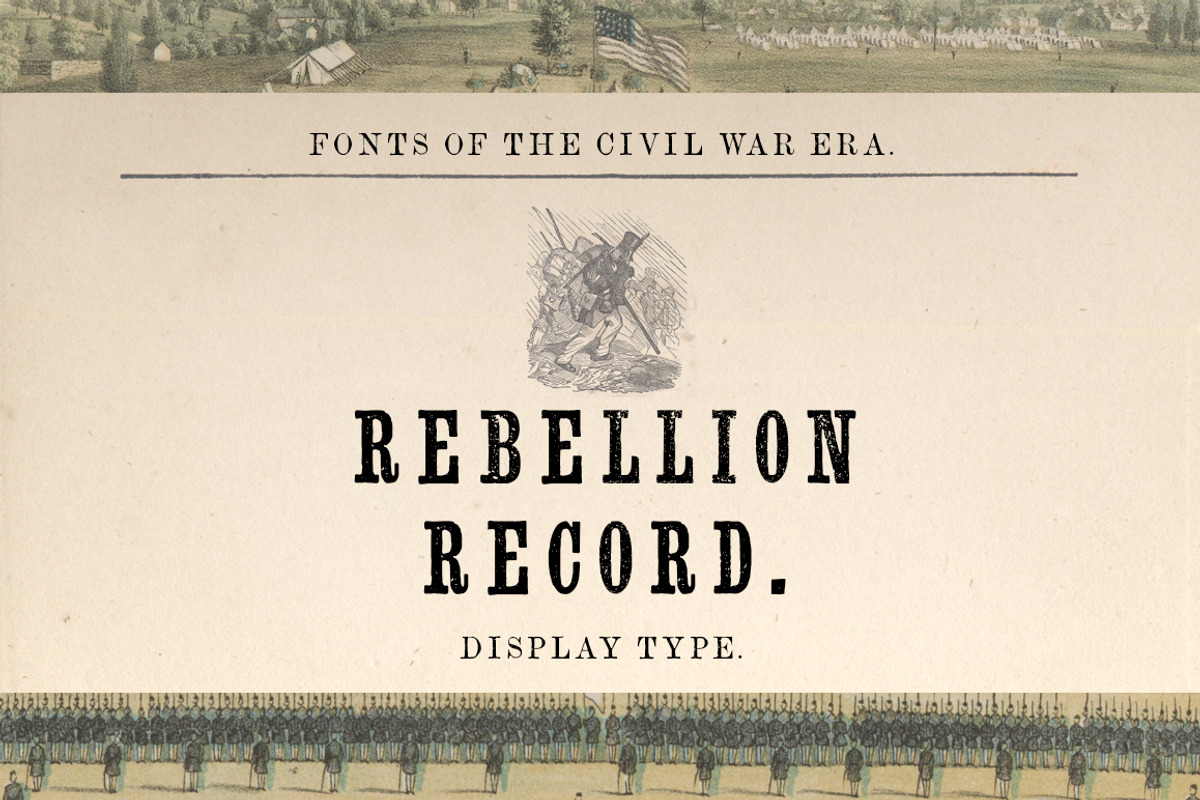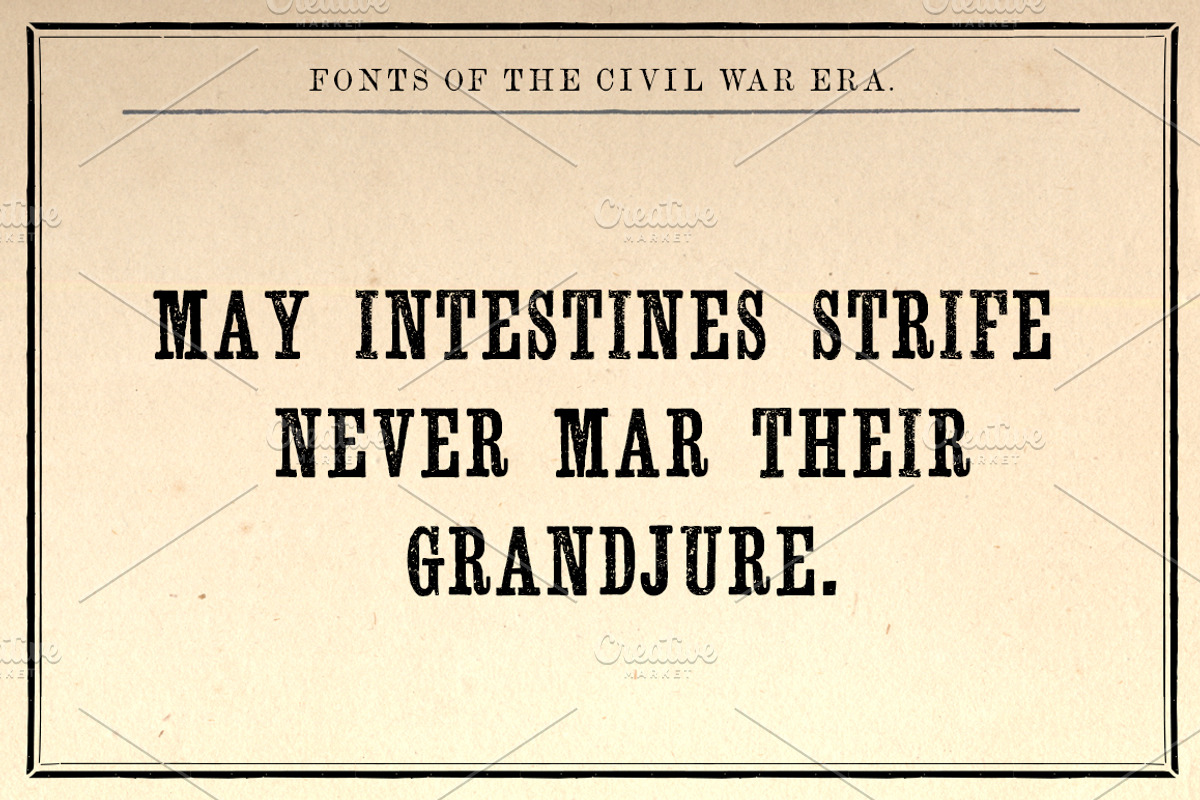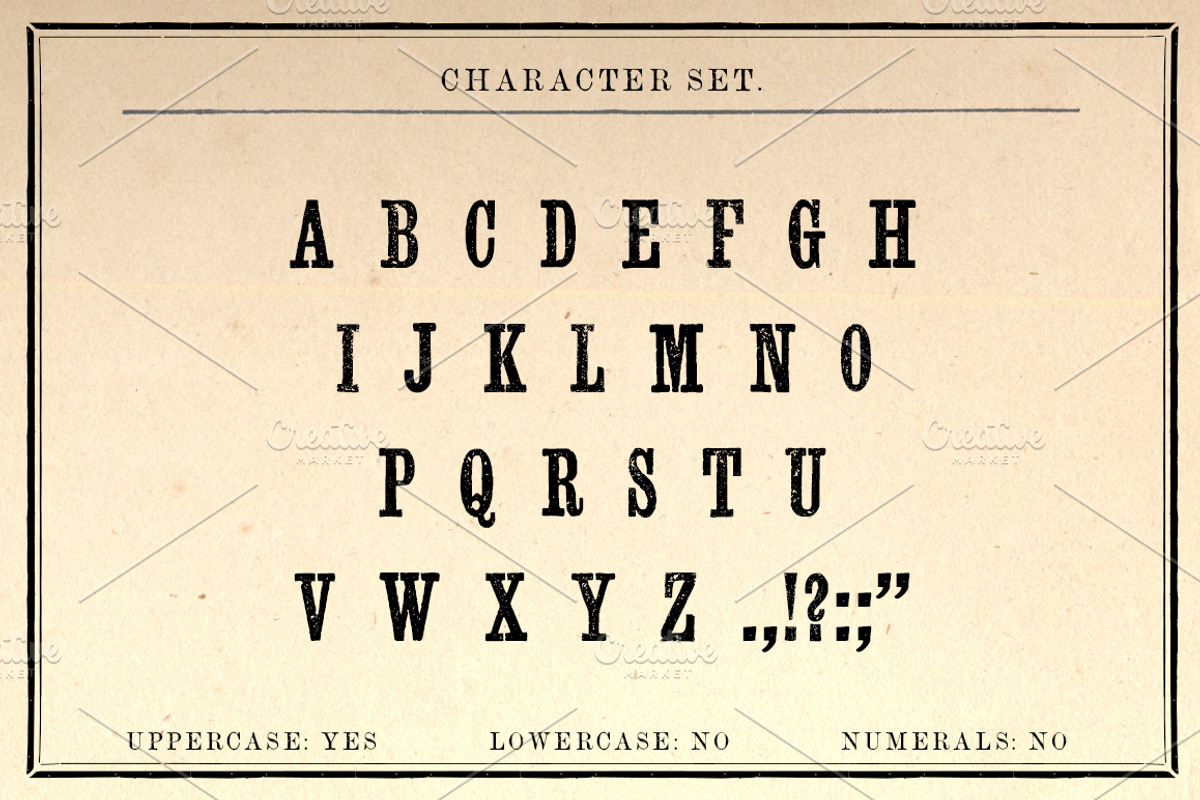
Rebellion Record Display Font
Rebellion Record Regular OTF is a serifed display font that comes from Volume 1 of The New Blazing Star Press's "Printer's Type Case."
- Unique Letterforms
The lowercase features a slight variant of the uppercase alphabet.
This font DOES NOT include LOWERCASE or NUMBERS, as they did not exist in the original font. Only basic punctuation is included.
It was very common for 19th century typesetters to use other fonts to substitute punctuation and numerals missing from a particular typeface.
Since they were scanned directly from the pages of original 150 year-old documents, the letters show imperfections common to letterpress printing.
WHAT'S BEHIND THE NAME "REBELLION RECORD"?
The Rebellion Record was a twelve-volume documentary history of the Civil War printed between 1861 and 1866 by Frank Moore, editor the Diary of the American Revolution.
All of our Civil War-era historical fonts were copied entirely from ORIGINAL LETTERS scanned from type specimen, business directories, song sheets, broadsides, and advertisements, printed between 1848 and 1867 gathered from museums, private collections, and the Library of Congress. No cheap work done, but instead with a neatness not to be excelled in the Typographical Art.